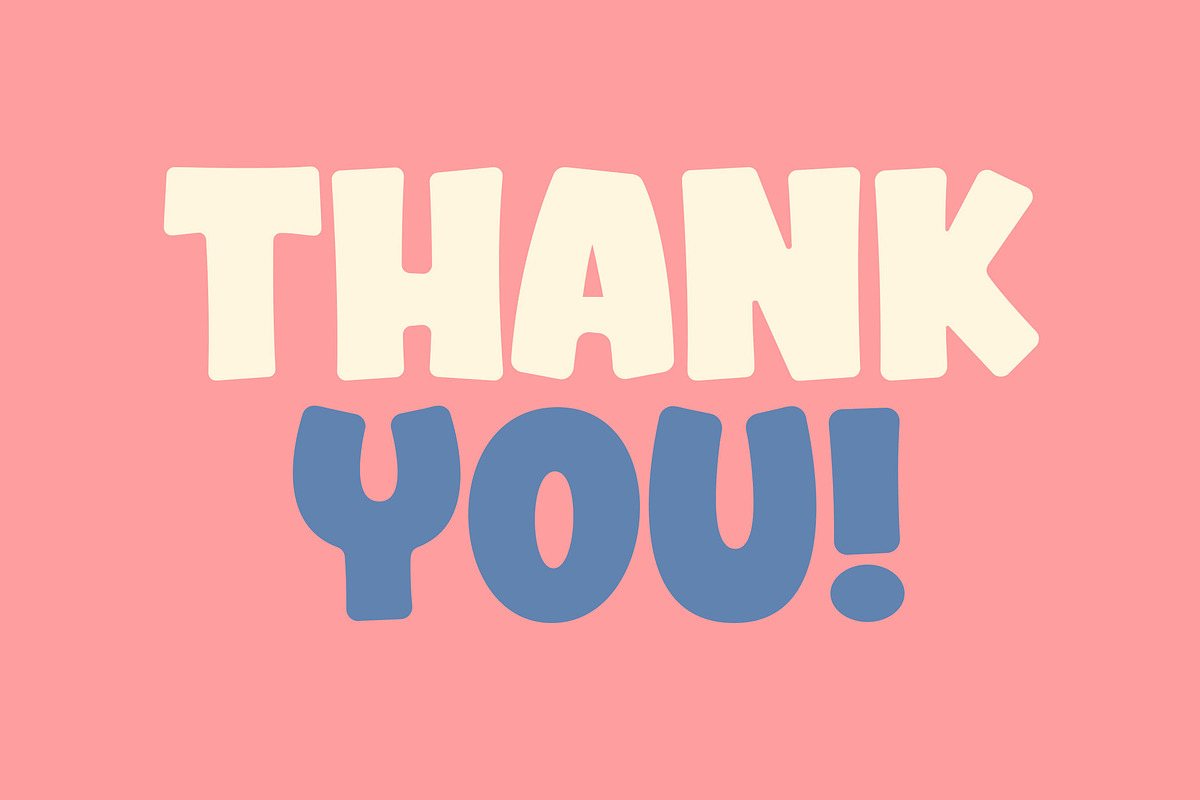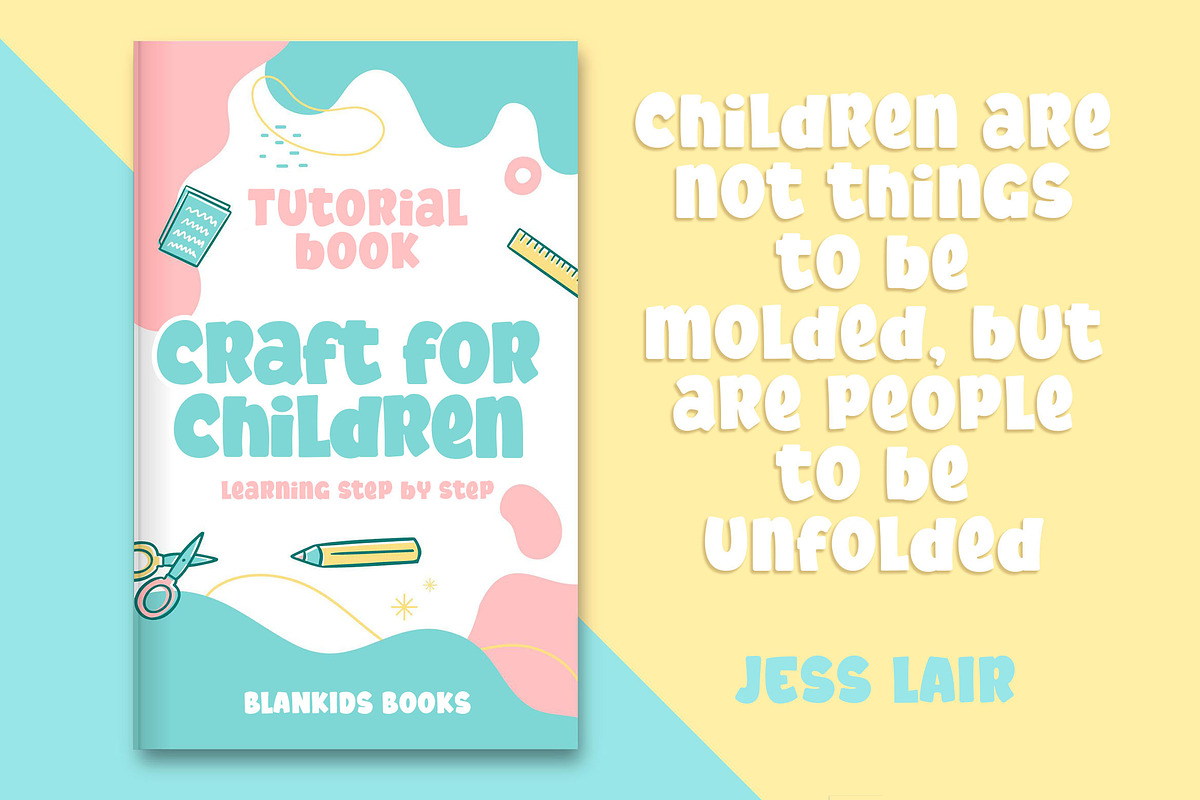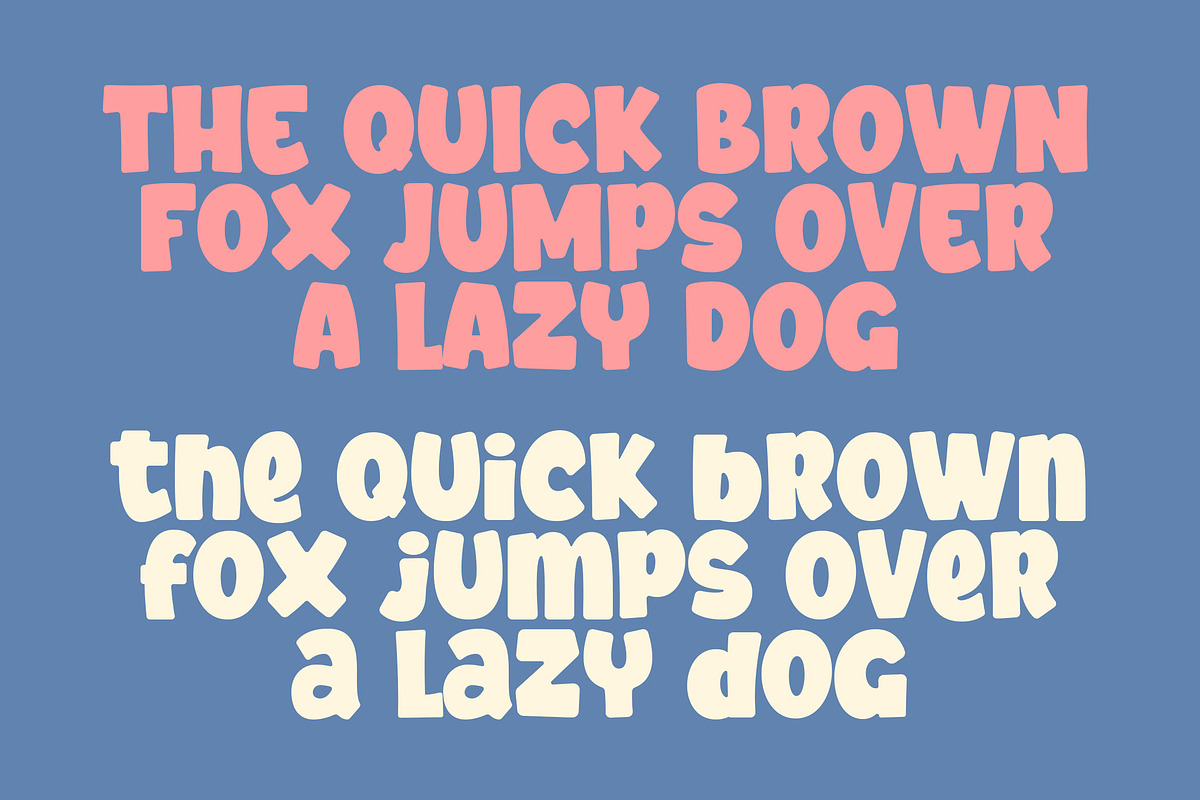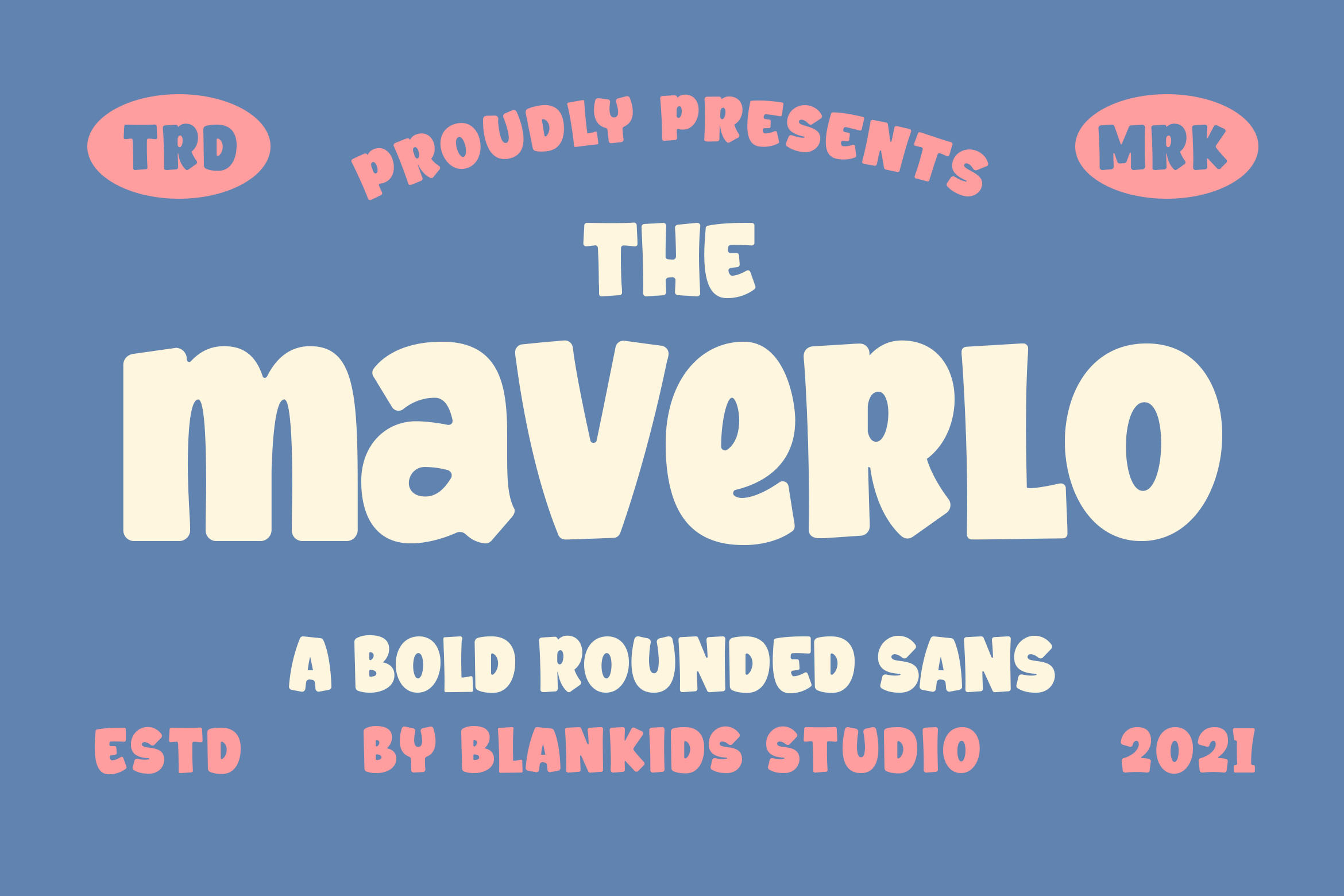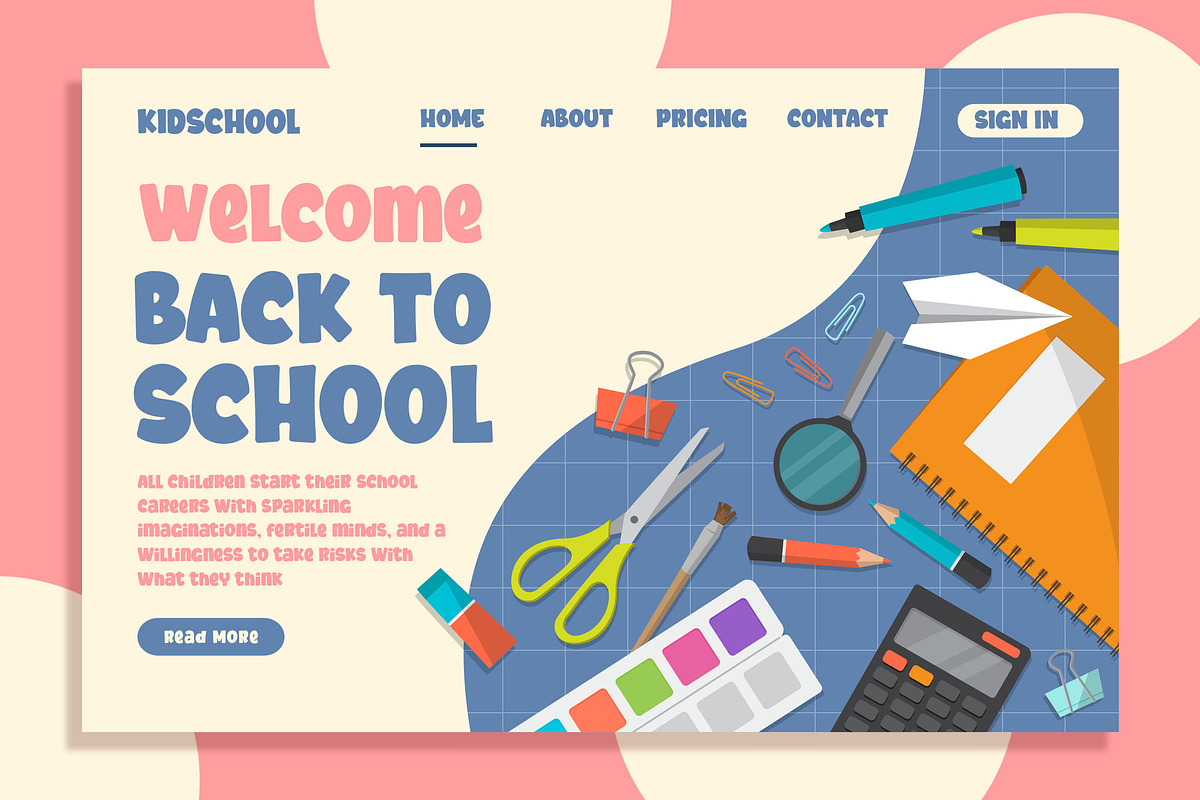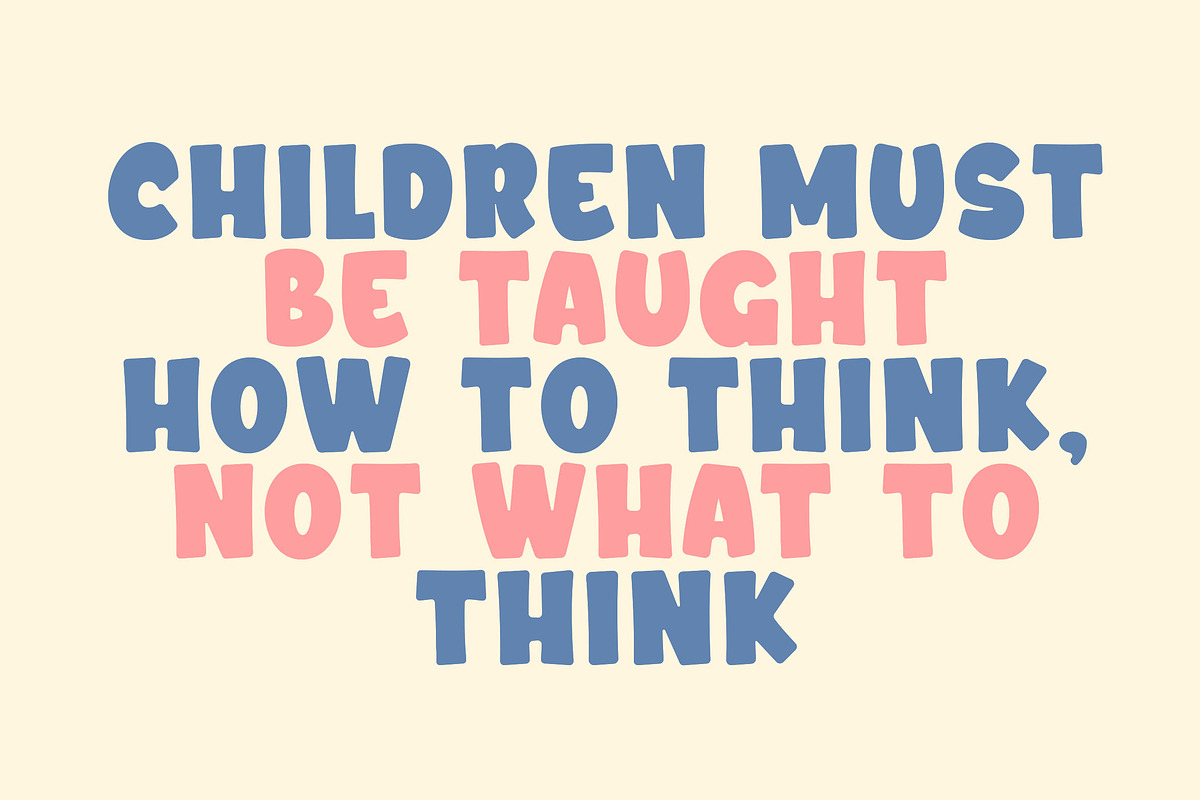
Maverlo a Bold Rounded Sans Font
Introducing of our new product the name is Maverlo a Bold Rounded Sans Font, Maverlo inspired by Playful style with a fun theme very good for kids and playful theme design.